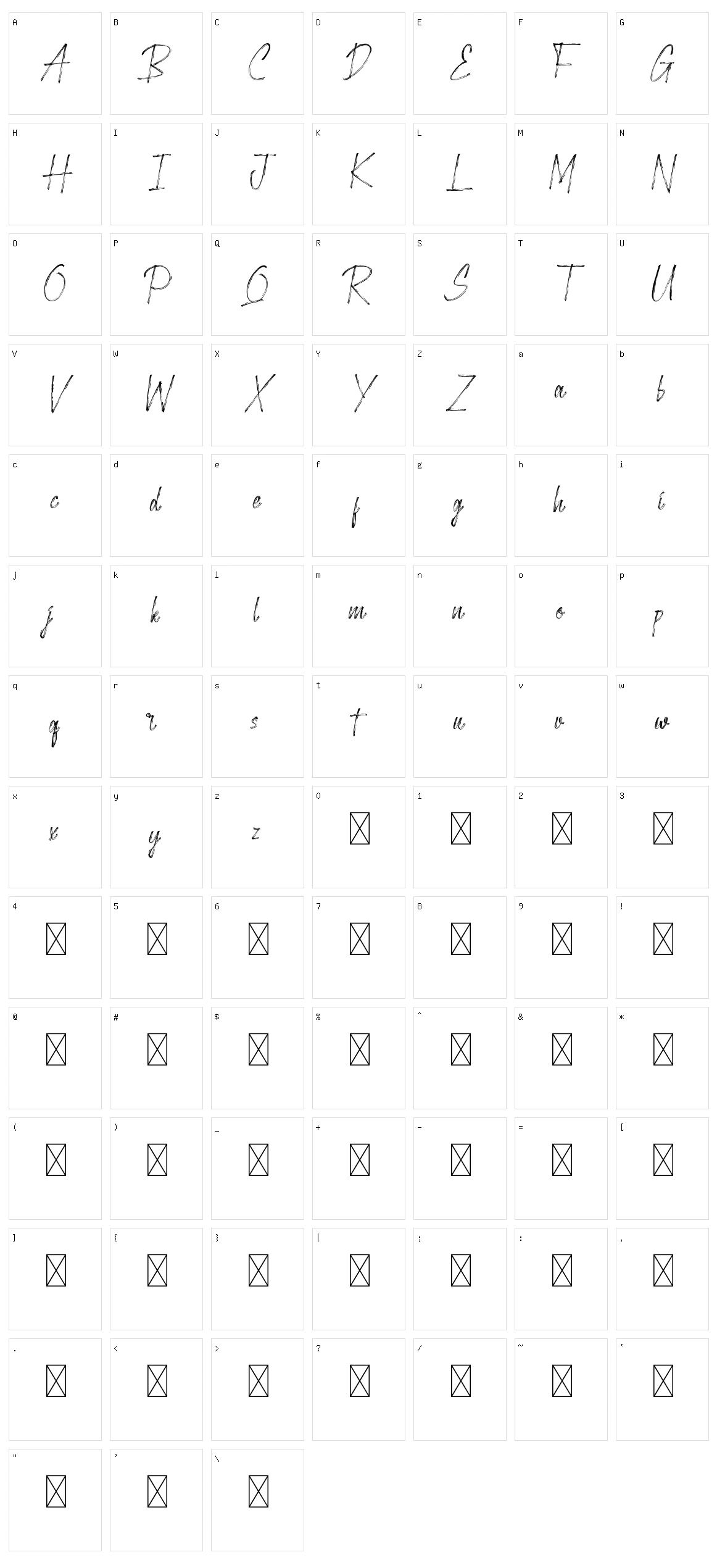
The free font Stockholder is carefully designed by NihStudio, showcasing a thoughtful balance of creativity and usability and falls under the Script font style. When you download the ZIP file, it contains only 411.54 KB of font files, making it lightweight and quick to download. Please review the license details below to understand permitted usage and distribution rights. If license information is not available, we recommend using this font for personal projects only or contacting the author directly for commercial usage permissions.